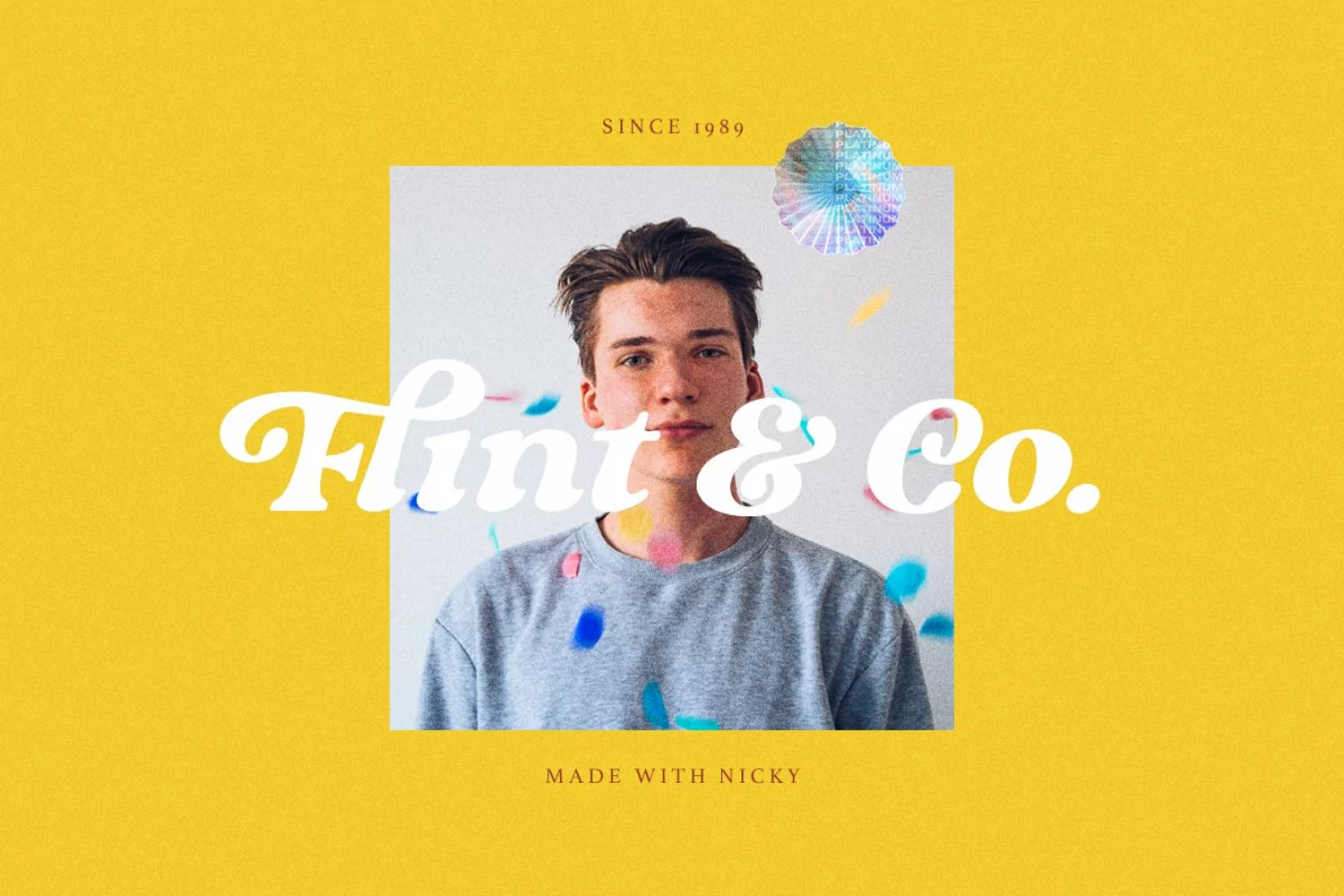
Nicky is a retro and soft bold italic serif with a bunch of ligatures and alternates that will make your presentation or logo even more stunning and stand out! This font will make your project looks retro, chic, and presentable. You can use this font for poster, event, or your social media post. Nicky also support Multi Language. You can access the underline just from ligature of opentype feature, just type underline + number(1-3) in the middle of the text for example Ni_2cky. Get the nostalgic feeling with this font!